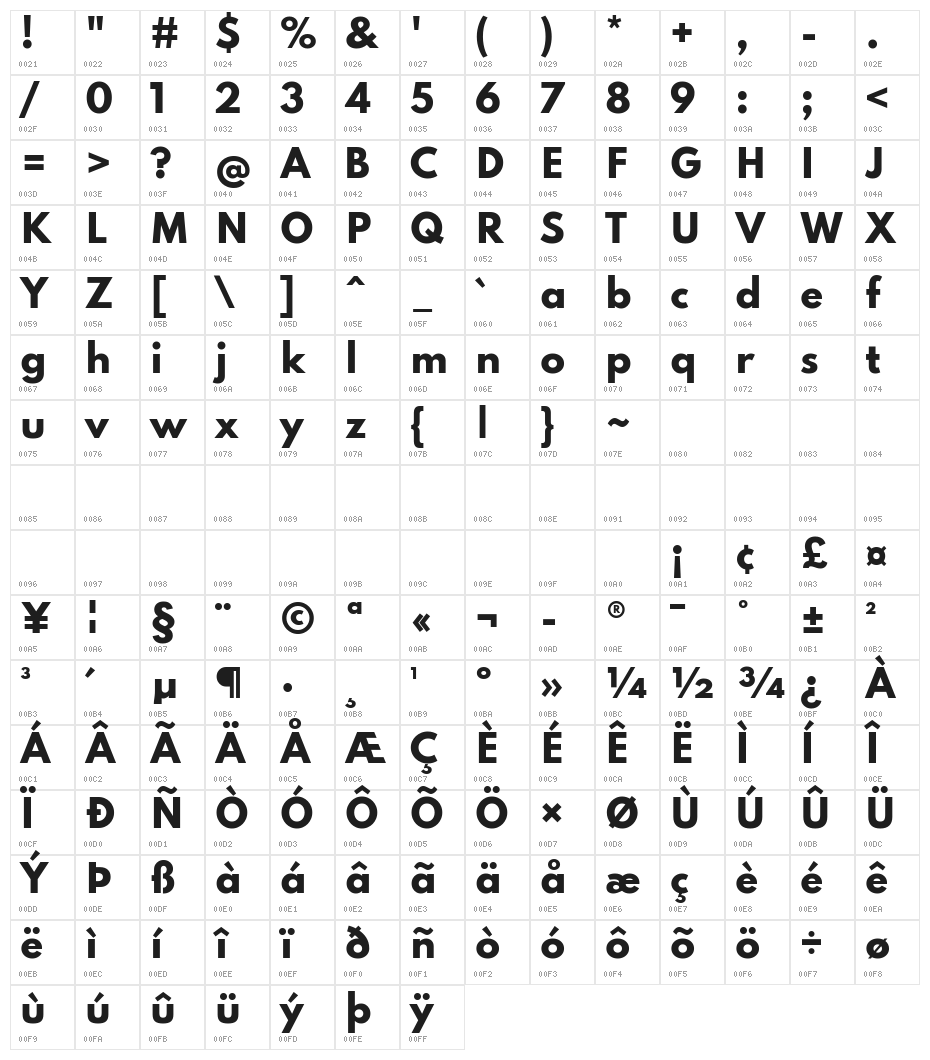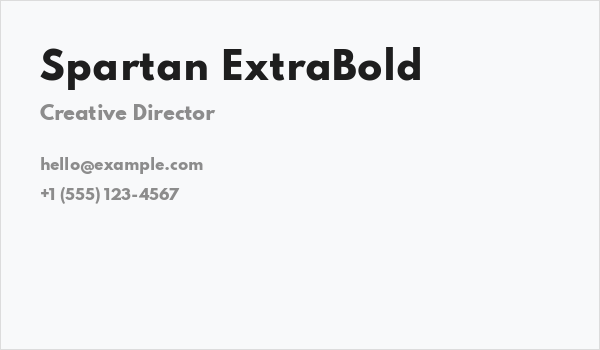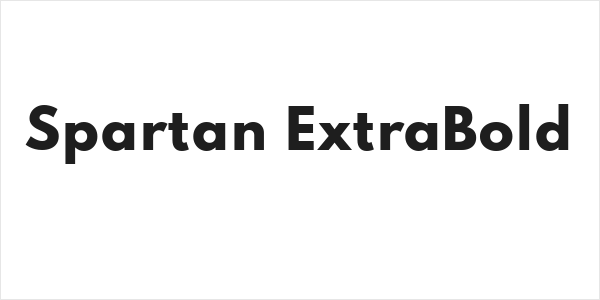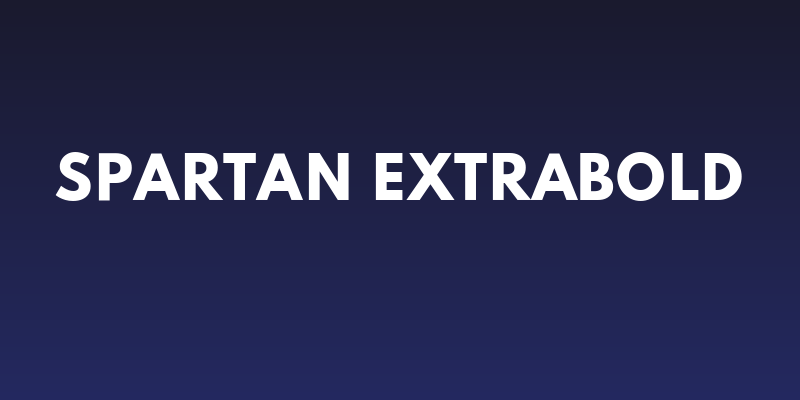
Spartan ExtraBold Font
Spartan ExtraBold Description
This typeface is characterized by its bold and robust appearance, featuring thick strokes and a strong presence. The letters are uniformly wide, giving it a balanced and cohesive look. The uppercase characters are particularly striking, with a geometric and modern feel. The lowercase letters maintain the same boldness, ensuring readability and impact. The numerals are clear and consistent with the overall style, making them suitable for various applications. Special characters are well-defined, adding versatility to the font's use. Overall, this typeface exudes confidence and clarity, making it ideal for attention-grabbing designs.
| Proposed Projects | Ideal for branding, headlines, posters, and advertising materials where a strong visual impact is needed. |